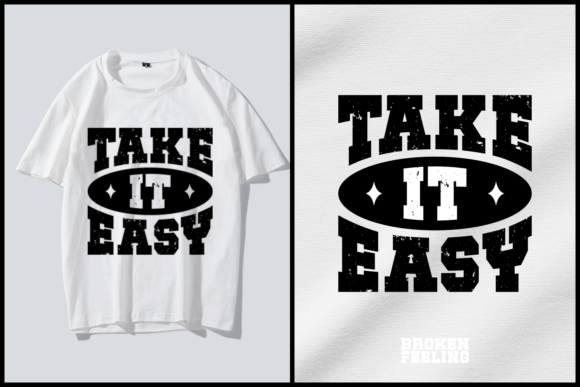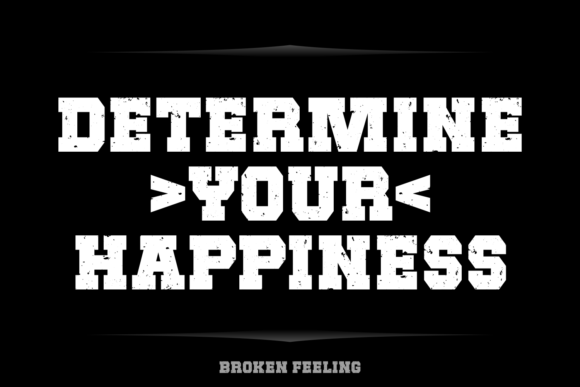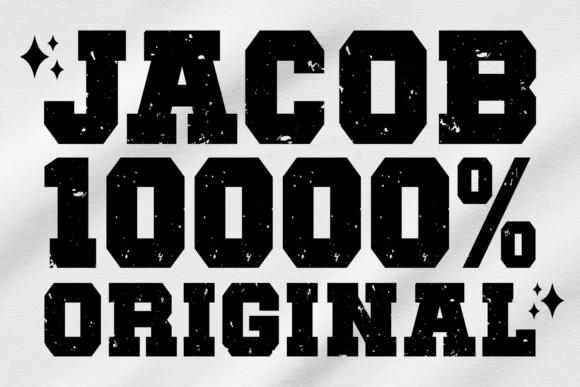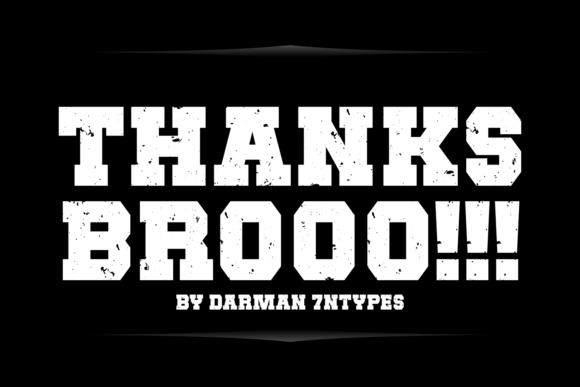
The Broken Feeling Font: A Vintage Grunge Revival
Have you ever been in the middle of a design project, pouring your heart and soul into it, only to hit a roadblock when it comes to finding the perfect font? I certainly have. It was during one of those moments of frustration that I stumbled upon the Broken Feeling Font, a vintage yet grunge-inspired typeface that has since become a staple in my design toolkit.
A Moment of Design Epiphany
I was working on a project for a client who wanted a retro-chic aesthetic with a modern twist. I spent hours scouring the internet for the perfect font, but nothing seemed quite right. That was until I came across the Broken Feeling Font. Its unique blend of nostalgia and edginess immediately caught my eye, and I knew I had found what I was looking for.
So, what do I love about the Broken Feeling Font? Here are a few things that make it stand out:
- ✨ Unique character: The Broken Feeling Font has a distinct personality that sets it apart from other fonts.
- ✅ Versatility: It can be used for a wide range of design projects, from branding and advertising to packaging and web design.
- 💥 Emotional resonance: The font’s vintage grunge aesthetic evokes a sense of nostalgia and rebellion.
- 🤔 Limited kerning options: Some users may find the kerning options a bit limited, which can make it tricky to use for certain projects.
- ⚠️ Occasional inconsistencies: As with any font, there may be occasional inconsistencies in the letterforms, which can be frustrating for perfectionists.
The Backstory of the Broken Feeling Font
The Broken Feeling Font was designed with the intention of capturing the essence of a bygone era, while still feeling fresh and modern. The designer drew inspiration from classic typography, combined with the raw energy of grunge culture. The result is a font that feels both nostalgic and cutting-edge.
| Font Name | Broken Feeling Font |
| Author | Darman (7NTypes) |
| What makes the Broken Feeling Font unique? | The Broken Feeling Font’s unique blend of vintage and grunge elements sets it apart from other fonts. |
| Is the Broken Feeling Font suitable for body text? | While the Broken Feeling Font is beautiful, it’s best suited for headlines and titles. For body text, a clearer font may be more readable. |
In conclusion, the Broken Feeling Font is a versatile and unique typeface that can add a touch of personality to any design project. With its blend of vintage and grunge elements, it’s perfect for designers, crafters, and creative hobbyists looking to add some edge to their work.